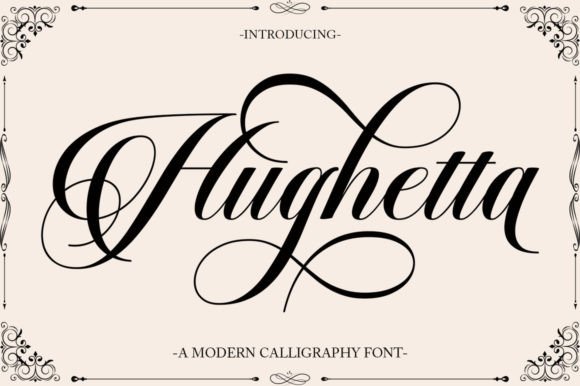
In a world where words struggle to capture the depths of human emotion, allow me to introduce you to Hughetta Font, the ultimate choice for expressing the inexpressible. This exquisitely crafted script font transcends the boundaries of ordinary typography, elevating your designs to realms of unparalleled elegance and charm.
With its meticulous attention to detail, Hughetta embodies the essence of stylish sophistication. Its graceful curves and intricate flourishes dance across the page like a delicate ballet, weaving a tapestry of visual delight. The character transformations are nothing short of breathtaking, each letter a miniature work of art, reminiscent of classic ornamental copper scripts.
Step into a realm of boundless creativity with Hughetta's comprehensive collection of alternative variants, binders, and calligraphy tips. These versatile tools unlock a world of possibilities, empowering you to craft elegant labels, high-end packaging, and stationery that exude a touch of timeless luxury.
Unleash your inner artist and let Hughetta inspire you to create compositions that resonate with the soul. Its versatility extends from select brands and beautiful titles to paragraphs, fonts, and short texts, each whispering messages of love, longing, and heartfelt emotions.
Embrace the beauty of exclusivity with Hughetta's PUA encoding, granting you effortless access to an array of captivating glyphs and ligatures. These intricate embellishments add a touch of magic to your designs, transforming them into captivating visual masterpieces.
Dive into the world of Hughetta and experience the transformative power of typography. Allow your creativity to soar as you craft designs that speak to the heart, leaving an indelible mark on the minds of those who behold them.